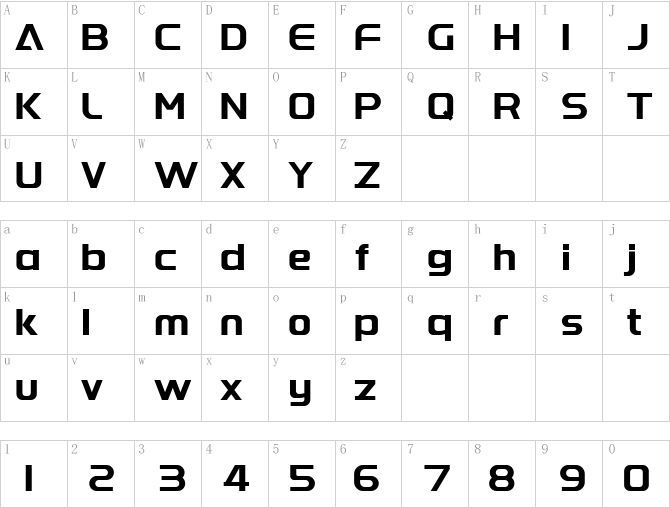
This is a set of full English font, suitable for headlines, LOGO design and other occasions to use, so only 52 English 10 numbers and a few punctuation.
This set of fonts actually finished a long time ago, at that time also sent this circle of friends, halfway through a lot of friends asked me if this set of words released yet, has not been sent, so it is delayed until now.
The clever thing about this set of words is that if your company needs to design LOGO, but you will not do LOGO design, you can type out the words, adjust a spacing, adjust a colour, internationalisation immediately soared!
For example, if you take a look at the following cases, you will understand, whether it is an Internet company, a clothing brand, a toy company, a food company, or a large enterprise, etc., are very suitable!
Font Name:字体圈欣意LOGO体
Xinyi LOGO Fonts